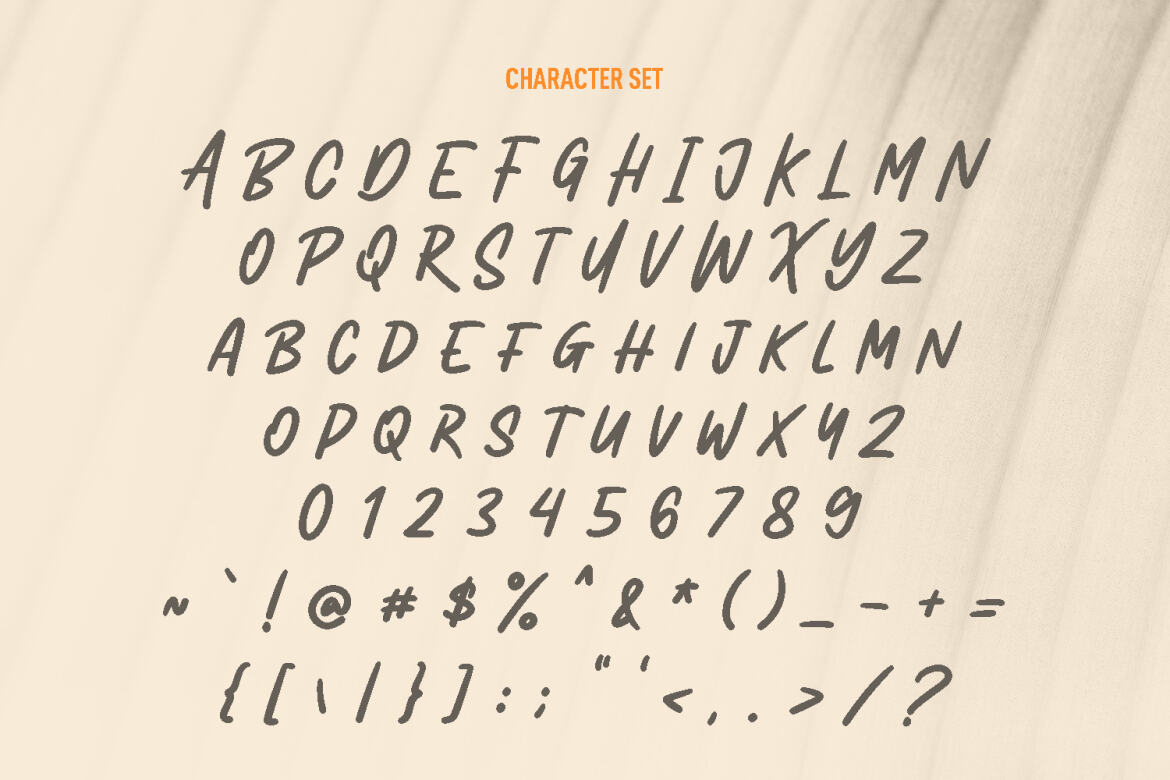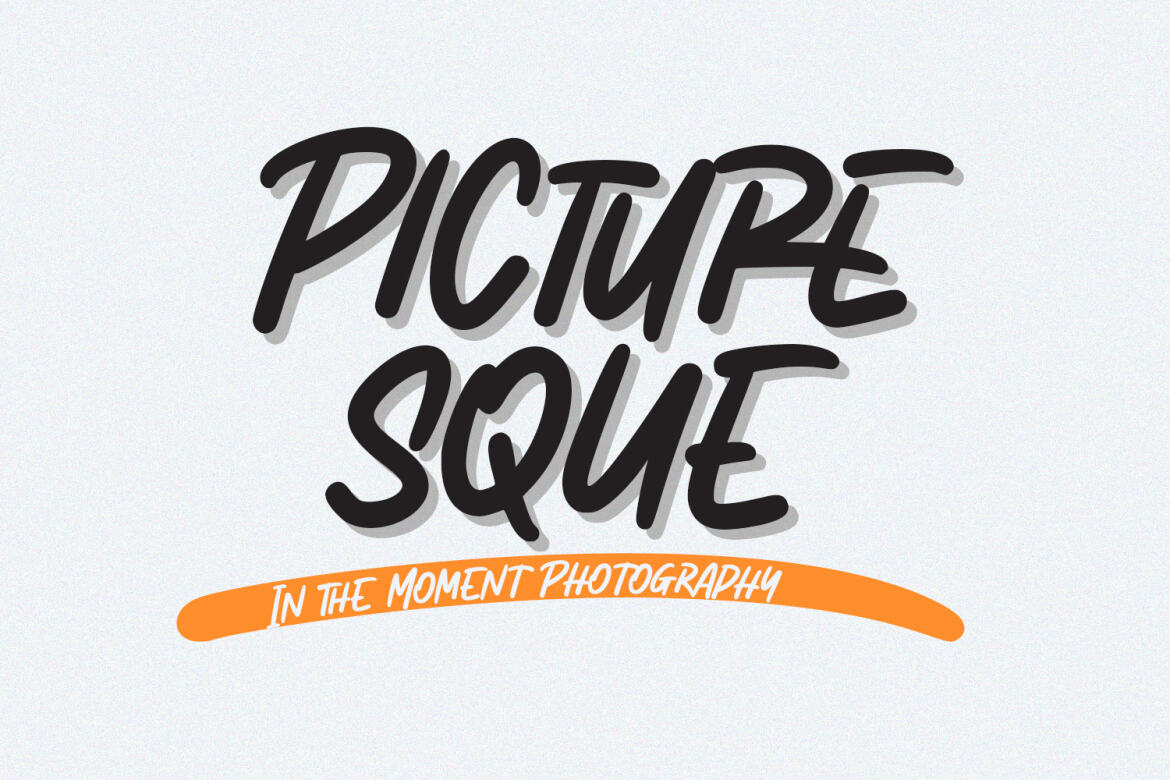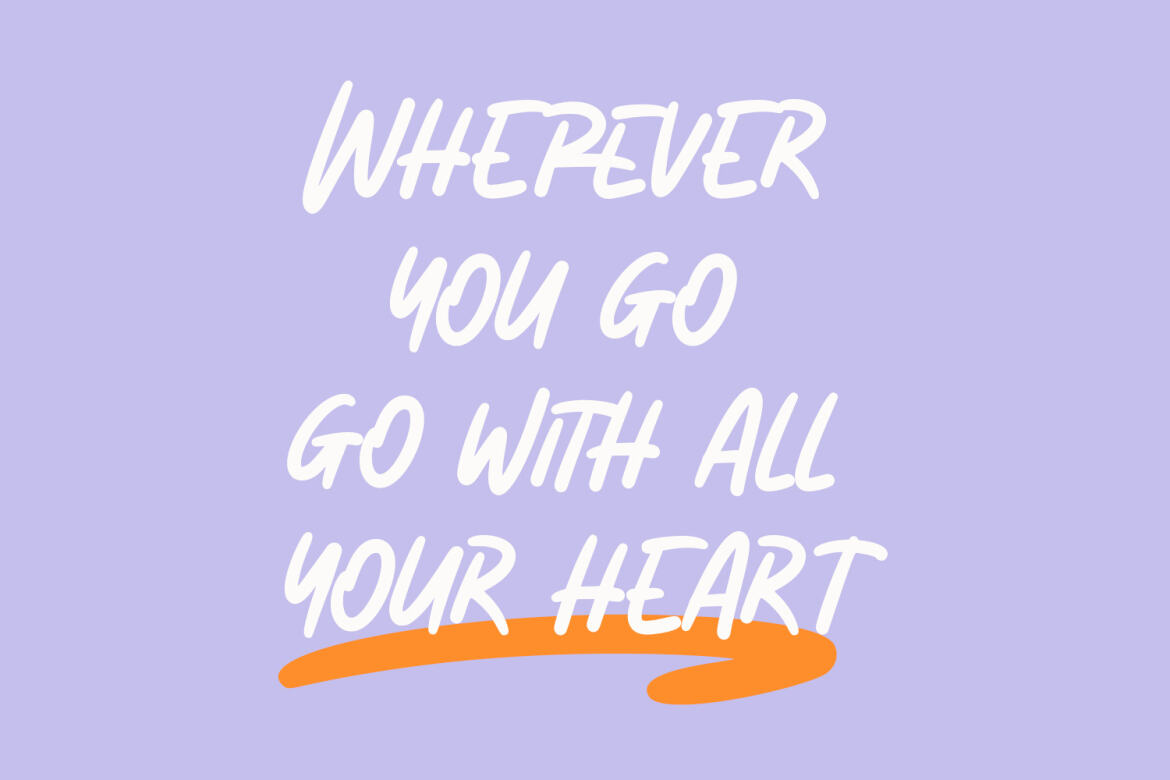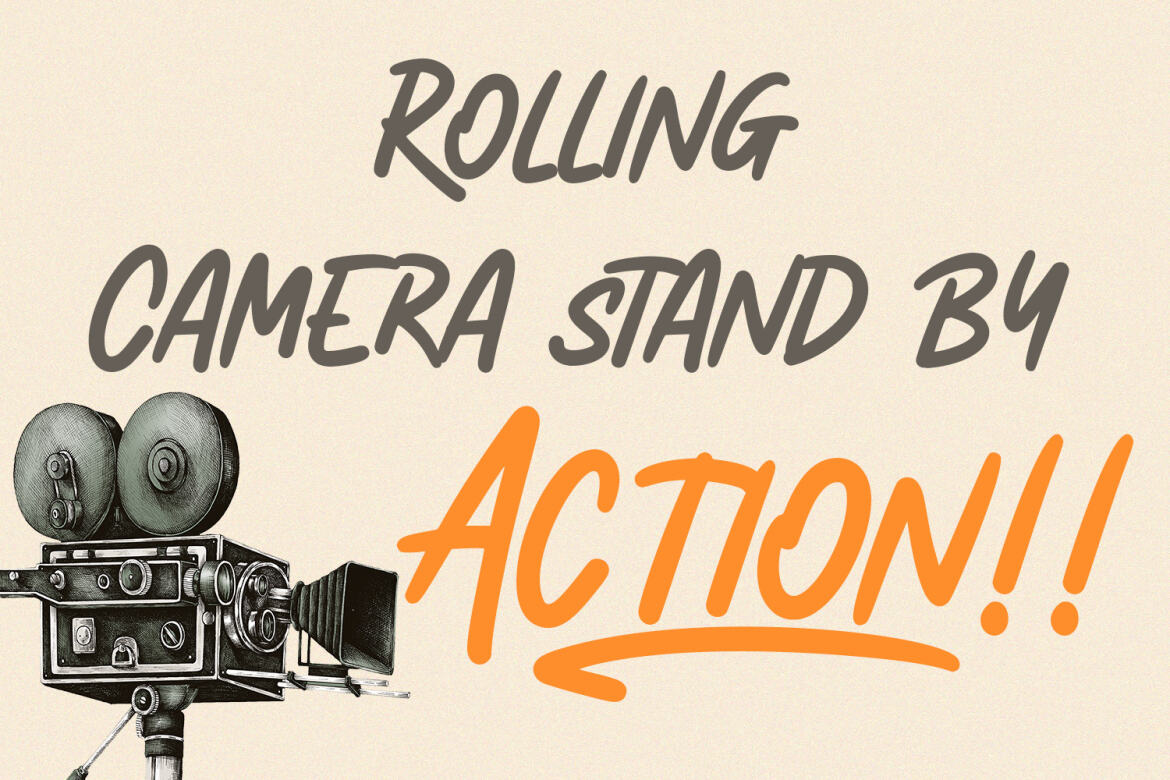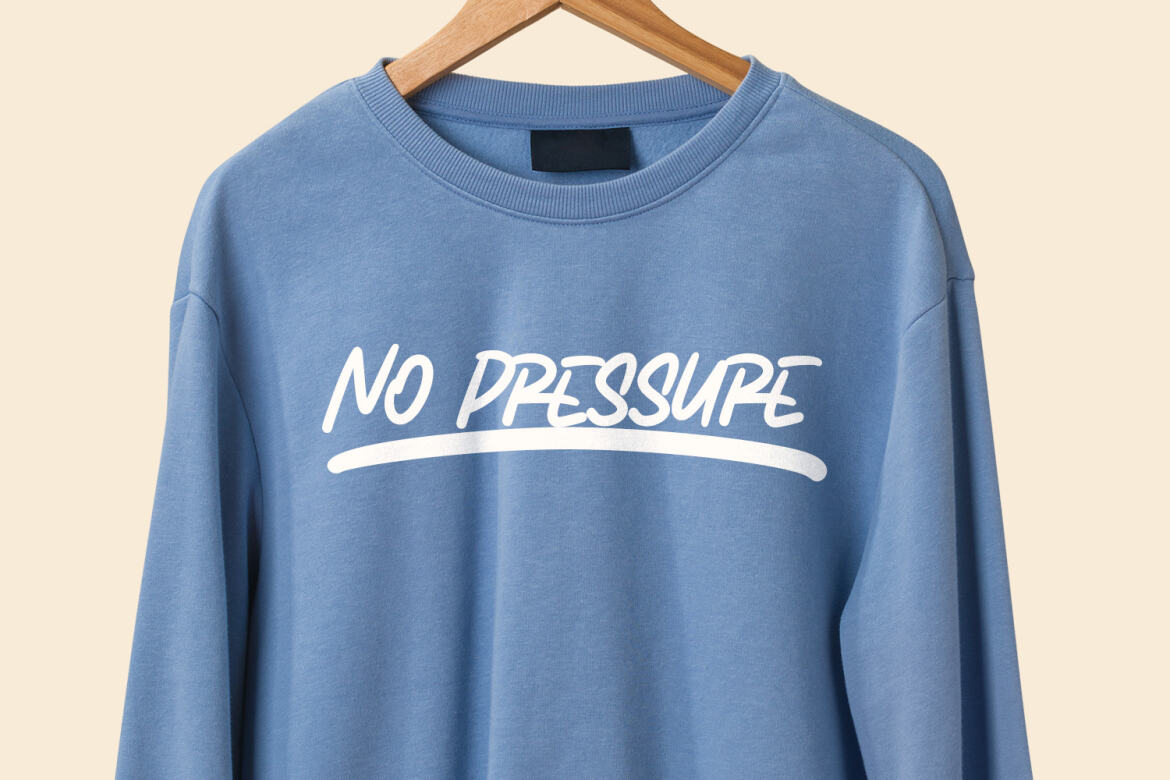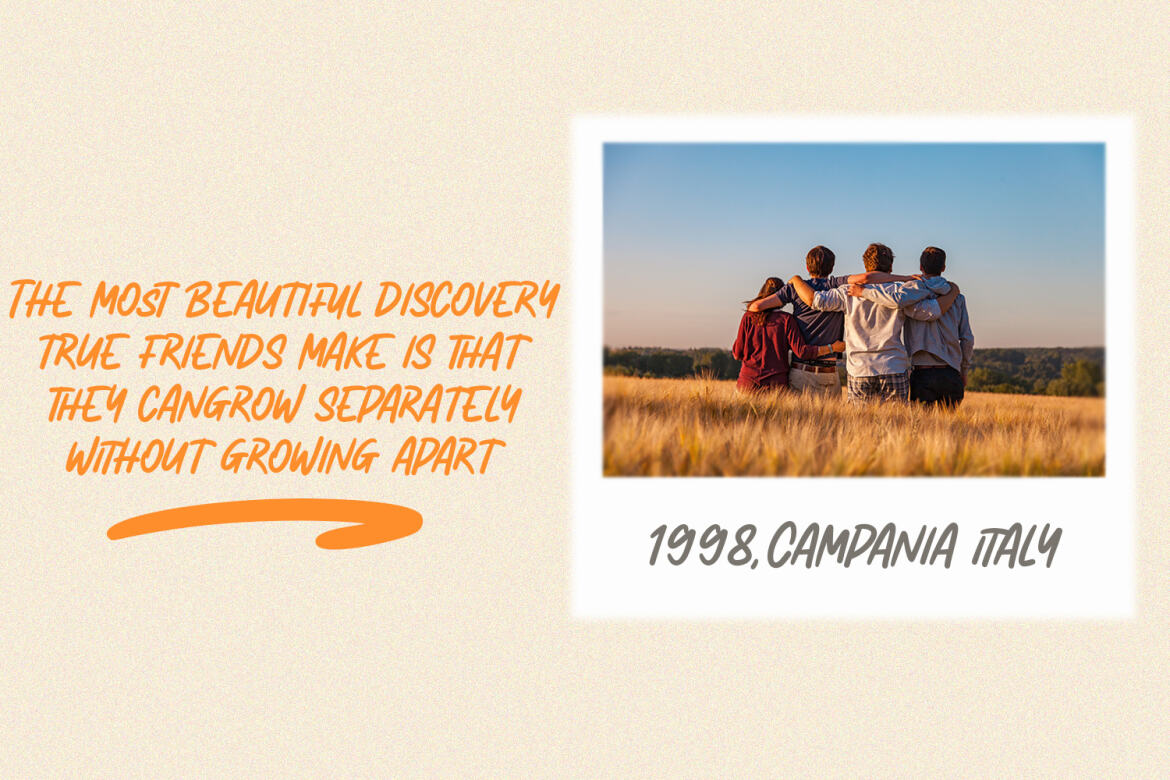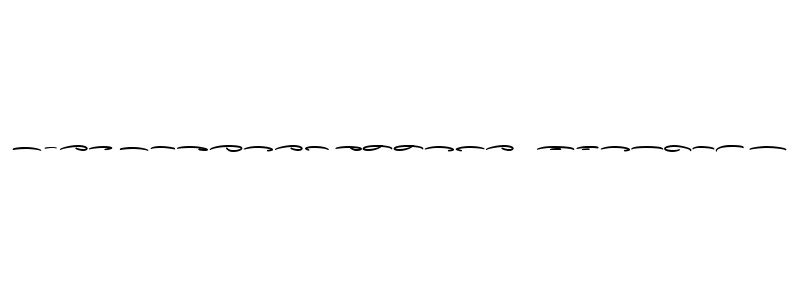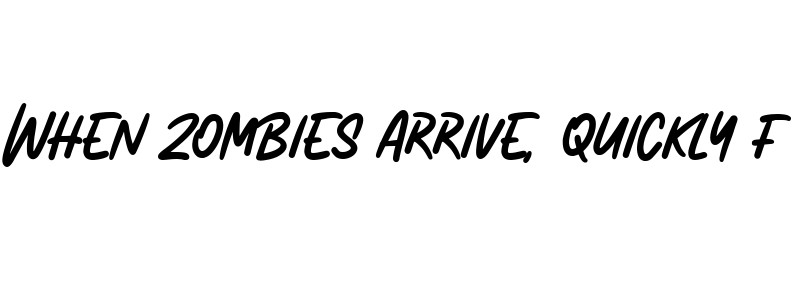
Arghfunks Fandwritten FREE Font
Arghfunks Swash preview
Arghfunks Swash
Arghfunks preview
Arghfunks
Arghfunks is a fancy handwritten display font. With condensed bold stroke, fun character with a bit of ligatures and alternates. To give you an extra creative work. Arghfunks font support multilingual more than 100+ language. This font is good for logo design, Social media, Movie Titles, Books Titles, a short text even a long text letter and good for your secondary text font with signature or script. Make a stunning work with Arghfunks font.